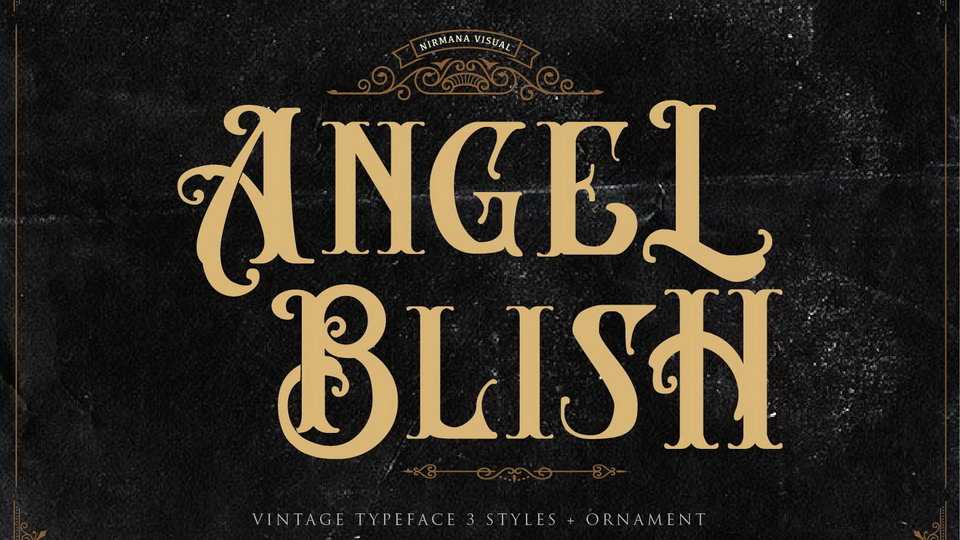
Download Angel Blish – a fancy, contemporary inspired by Victorian Era. Full version comes with 3 fonts -Regular, Inline and Rough with cliparts designed to work as perfect companions or simply as strong standalone typefaces.